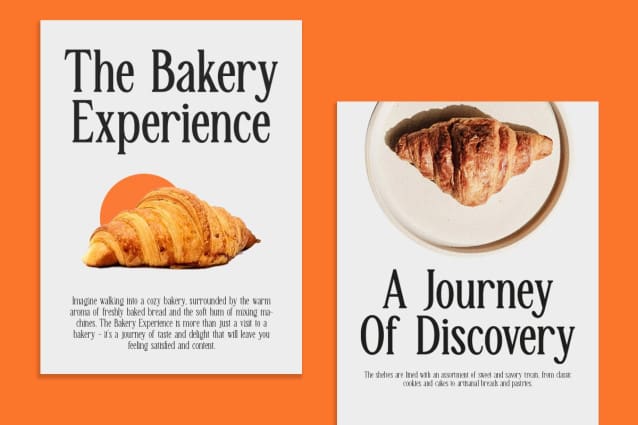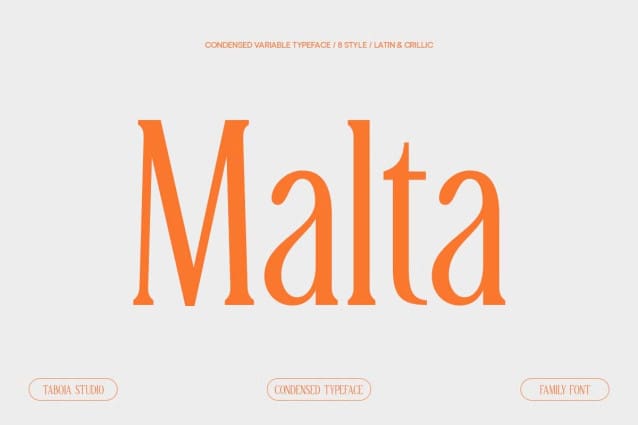
Malta Font Family
Malta Font Family is a serif typeface designed with elegance and ease of use in mind. It offers a classic yet modern look, providing flexibility for various designs. Malta delivers captivating visuals and clarity in every letter.
Malta Font is a beautifully nostalgic 9-Font typeface that looks incredible in both large and small settings as a display and body text.
With intuitive design and balanced proportions, Malta is easy to use in different contexts, ensuring optimal reading comfort for both long and short texts. It combines traditional charm with a modern style,making it highly versatile for both print and digital media.
Malta Font is the choice for designers seeking a blend of classic elegance and ease of use in one package. With 9 variants from Light to Black, Malta offers maximum flexibility for all design needs.